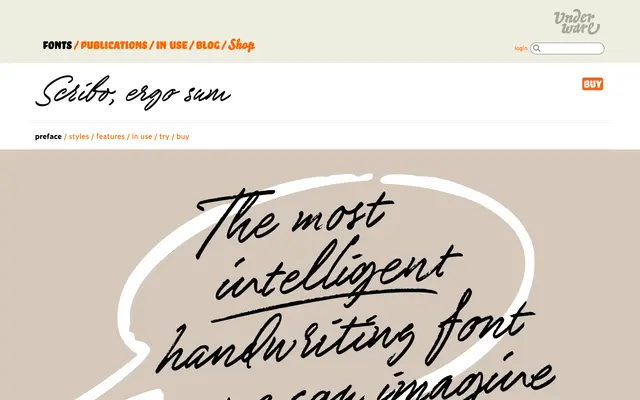
A handwriting-style typeface from Underware whose name derives from the Latin verb 'to write'.
Scribo takes its name from the Latin for 'I write', positioning it within Underware's broader interest in script and handwritten forms. The page provides limited style detail, but the foundry's track record with informal and connected letterforms suggests a considered approach to naturalistic writing. Underware are based in the Netherlands and are well regarded for experimental and script-based type design.
Underware are known for script and handwriting typefaces; the name Scribo (Latin for 'I write') and its placement within Underware's catalogue strongly suggests a handwriting or informal script category.